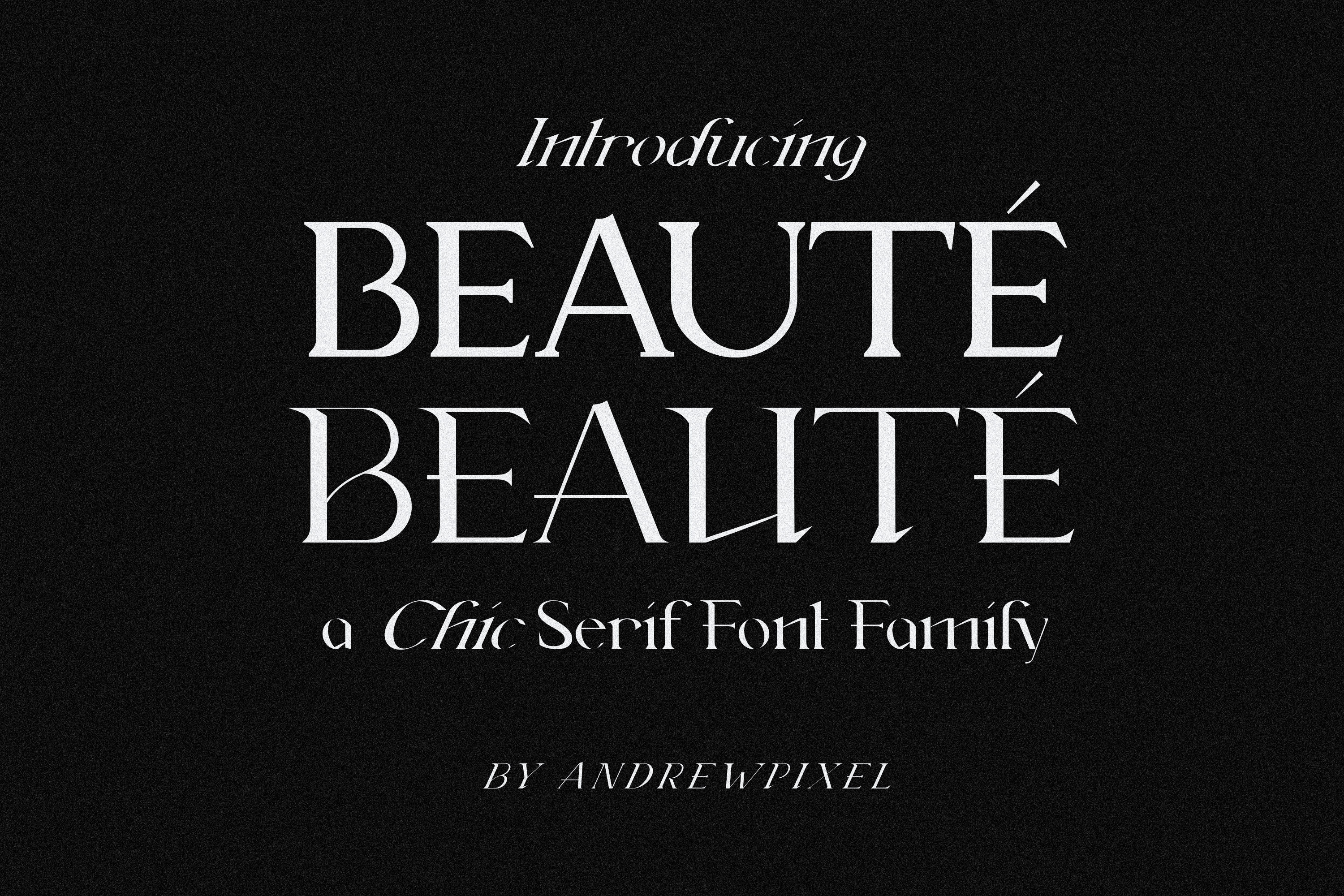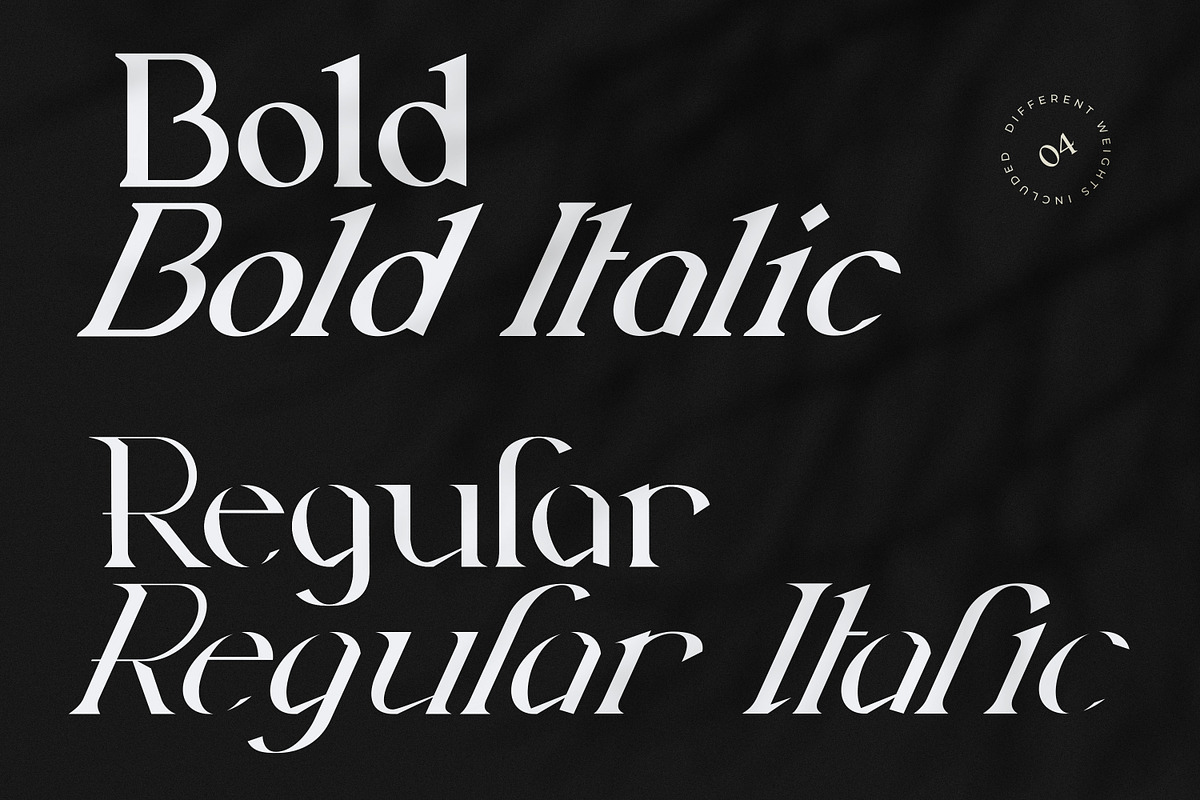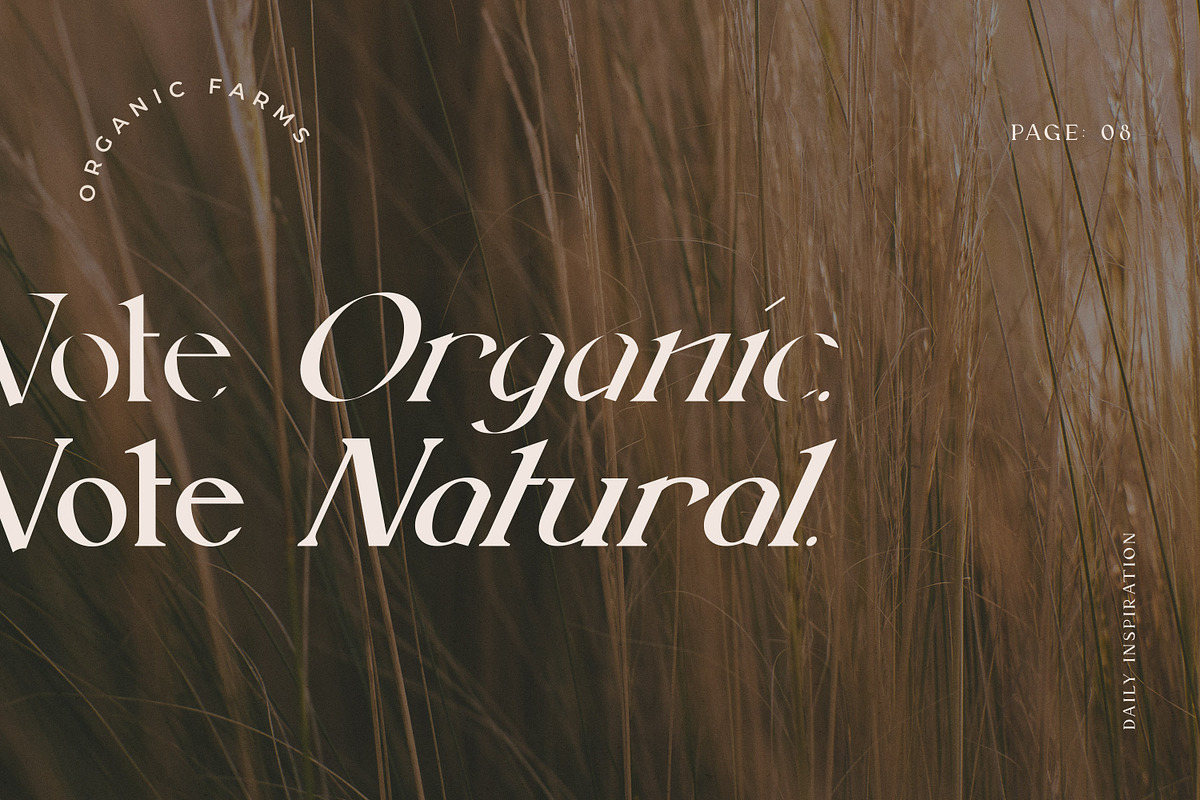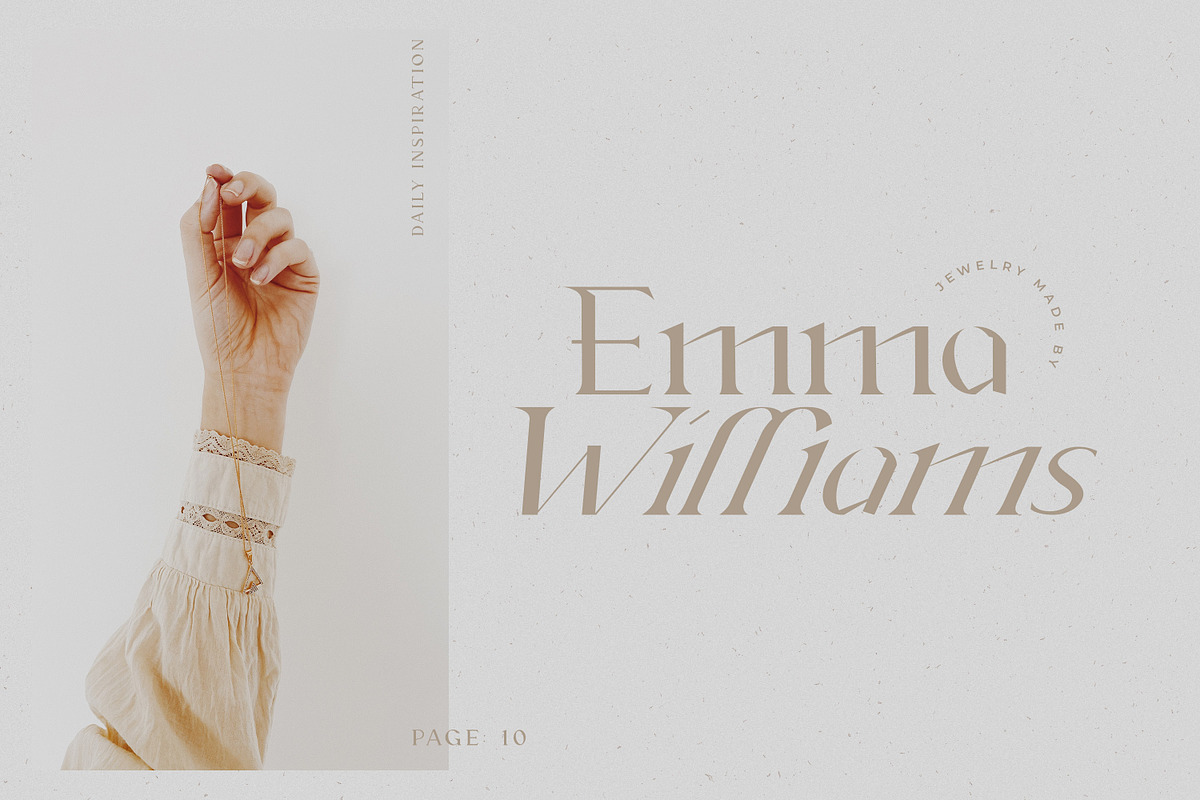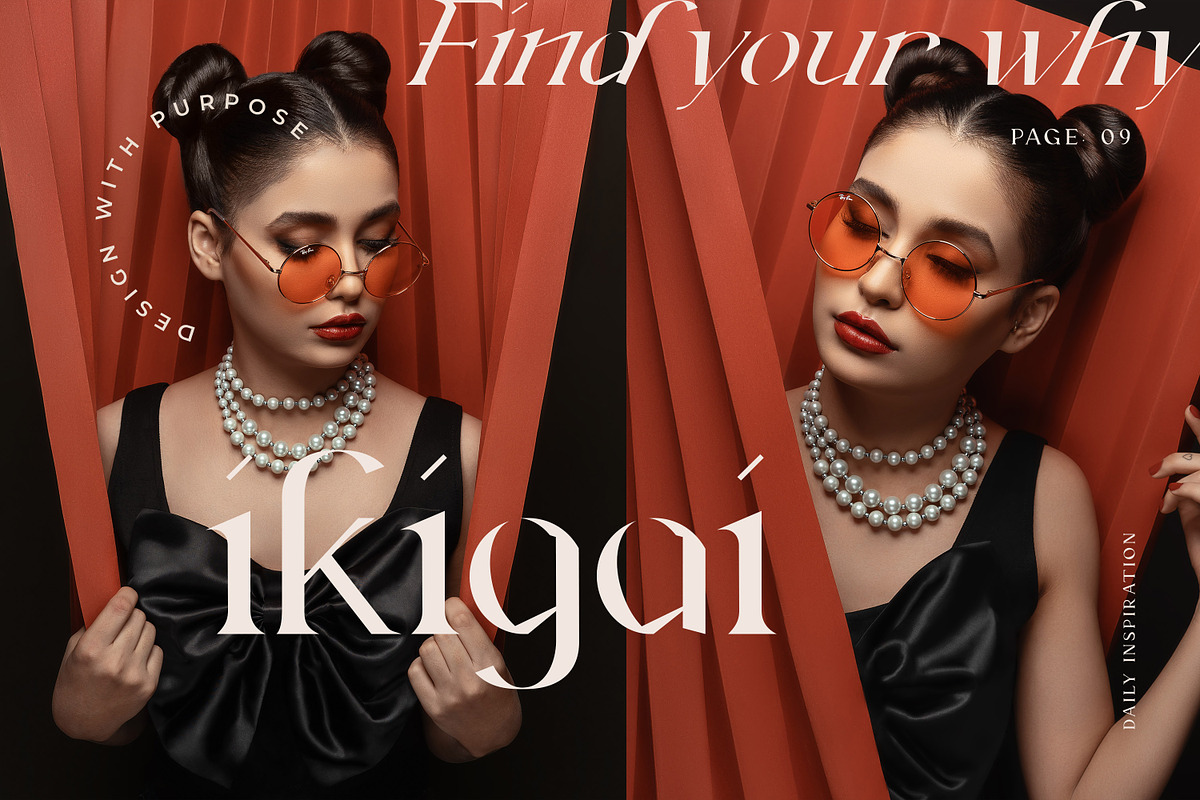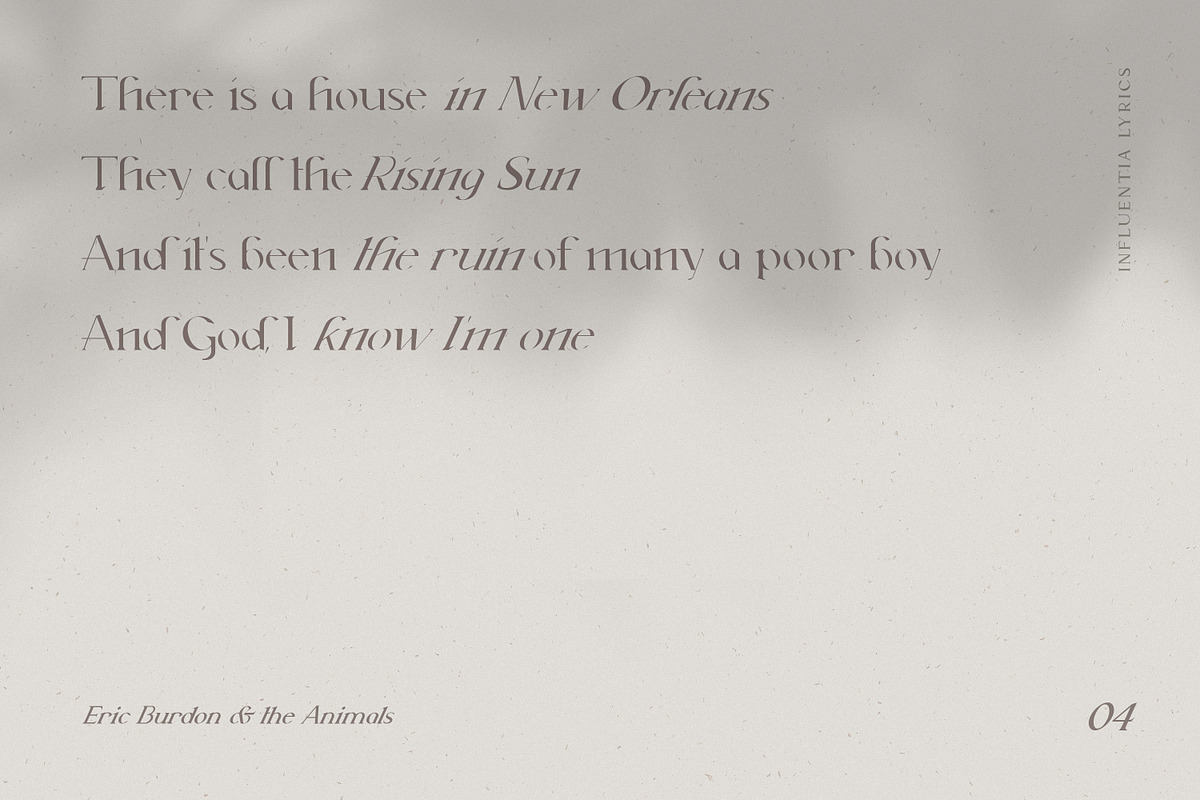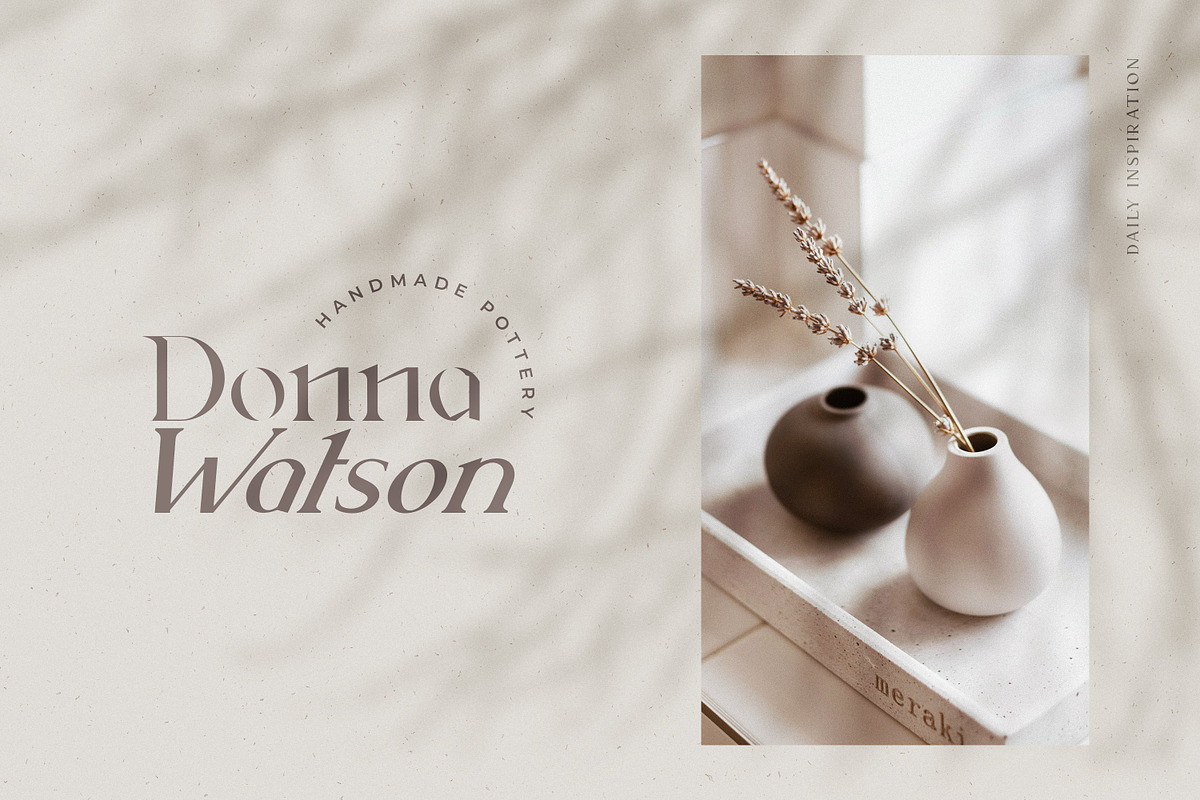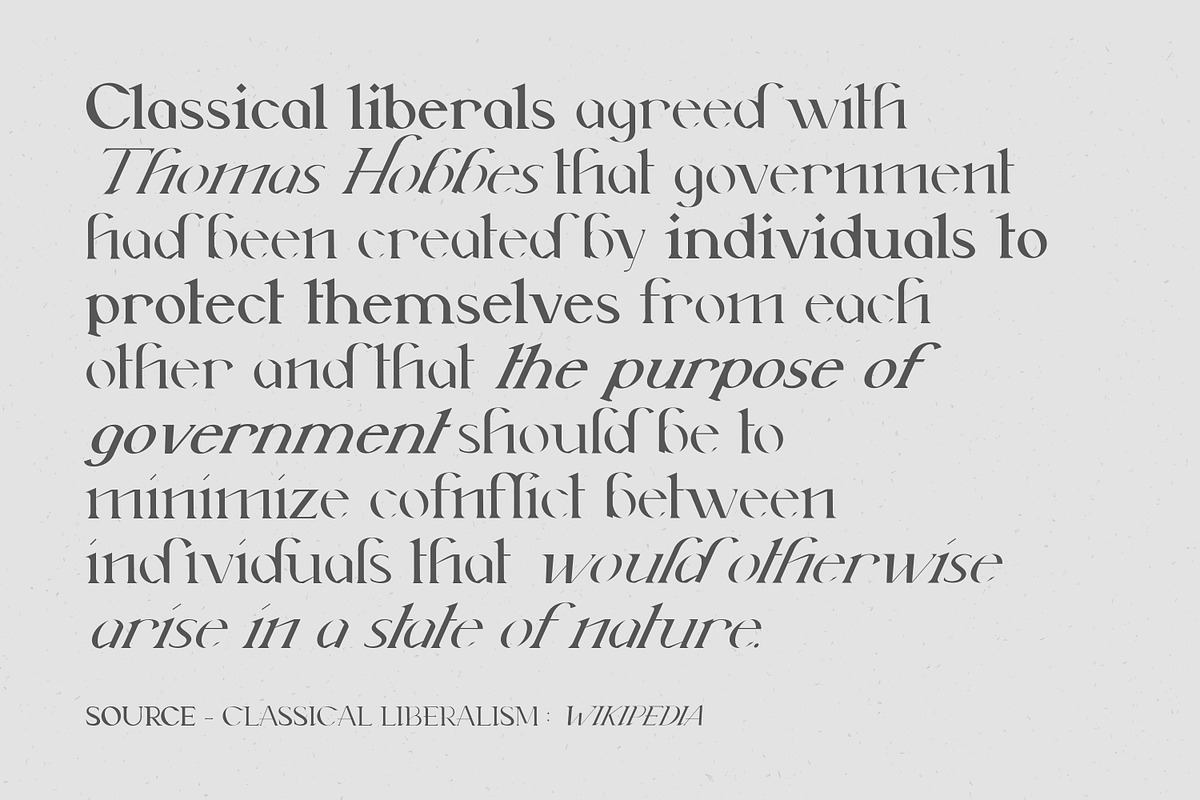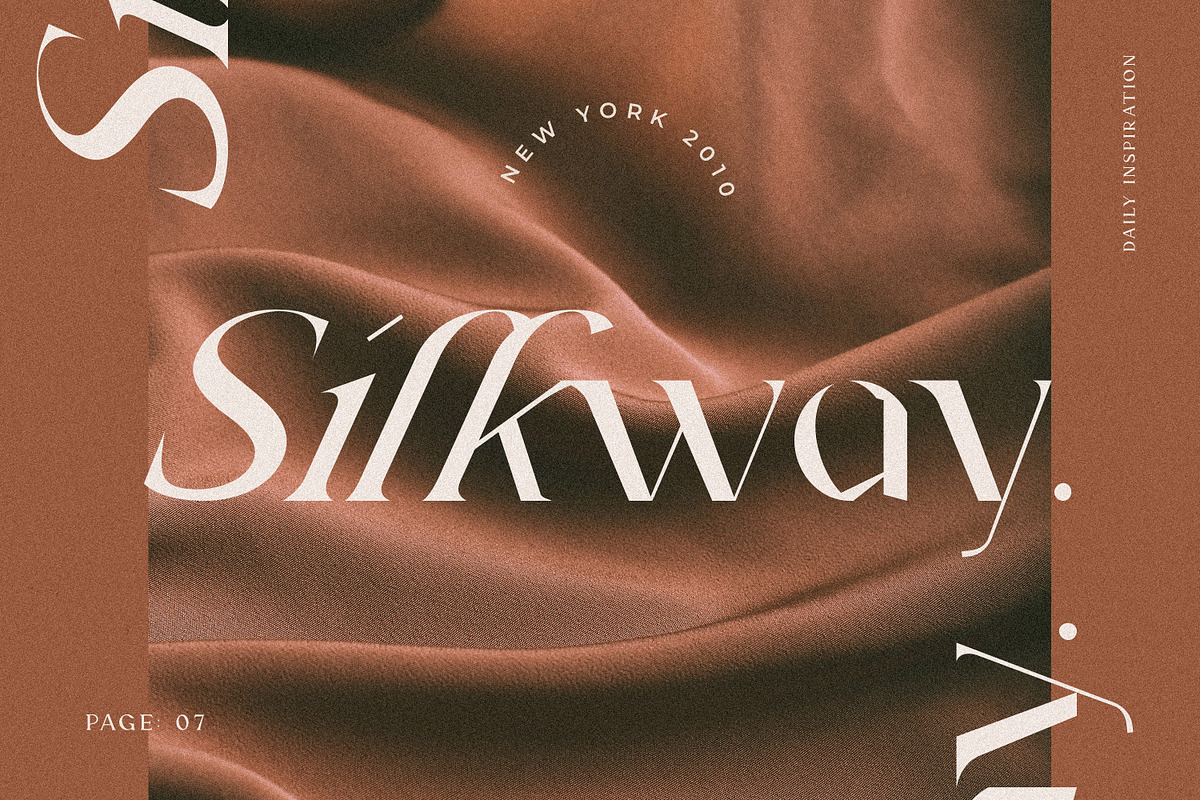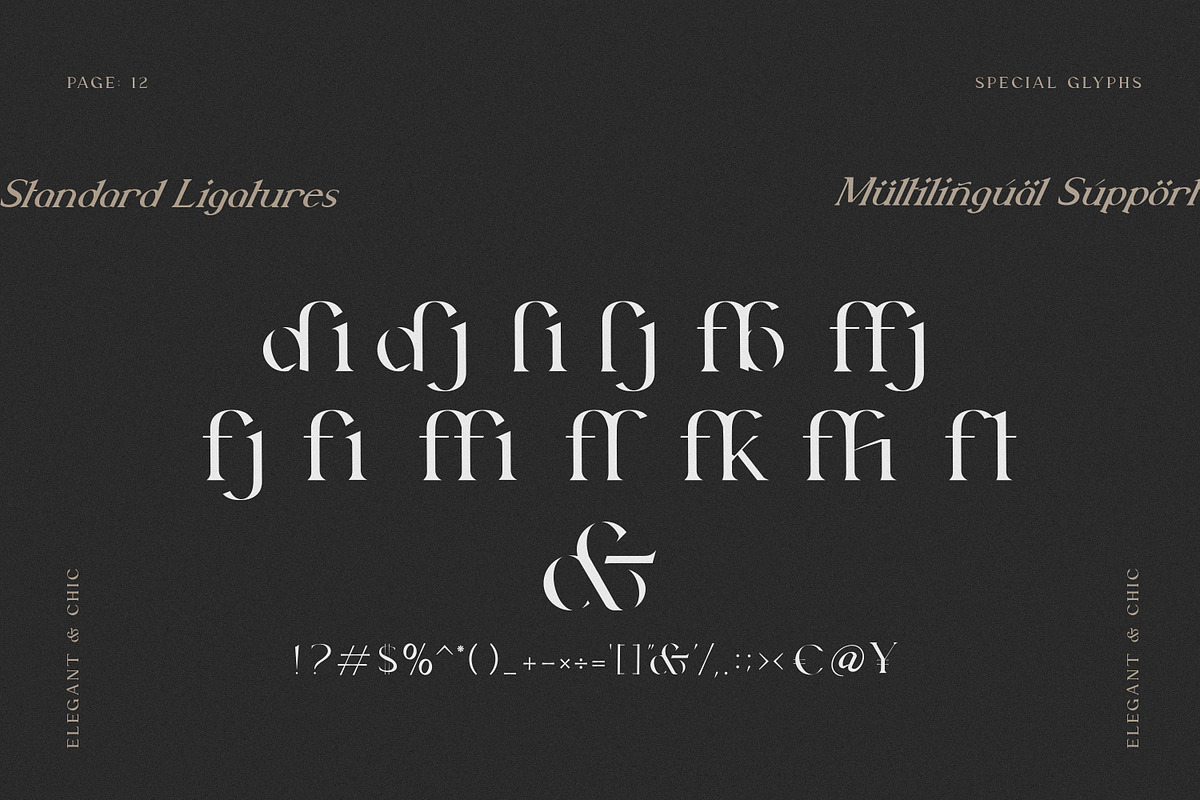
Beauté Modern Serif Font Family
Beauté is a modern and chic serif font family consisting of 4 different weights - with standard ligatures and unique glyphs with a slight reference to classic calligraphy. It comes in 4 different weight - regular, regular italic, bold and bold italic - with this combination you can easily create interesting typographic layouts and unique logo lockups.
The font family comes with a set of multilingual glyphs, special characters and numbers. There's no special software needed to use these fonts!